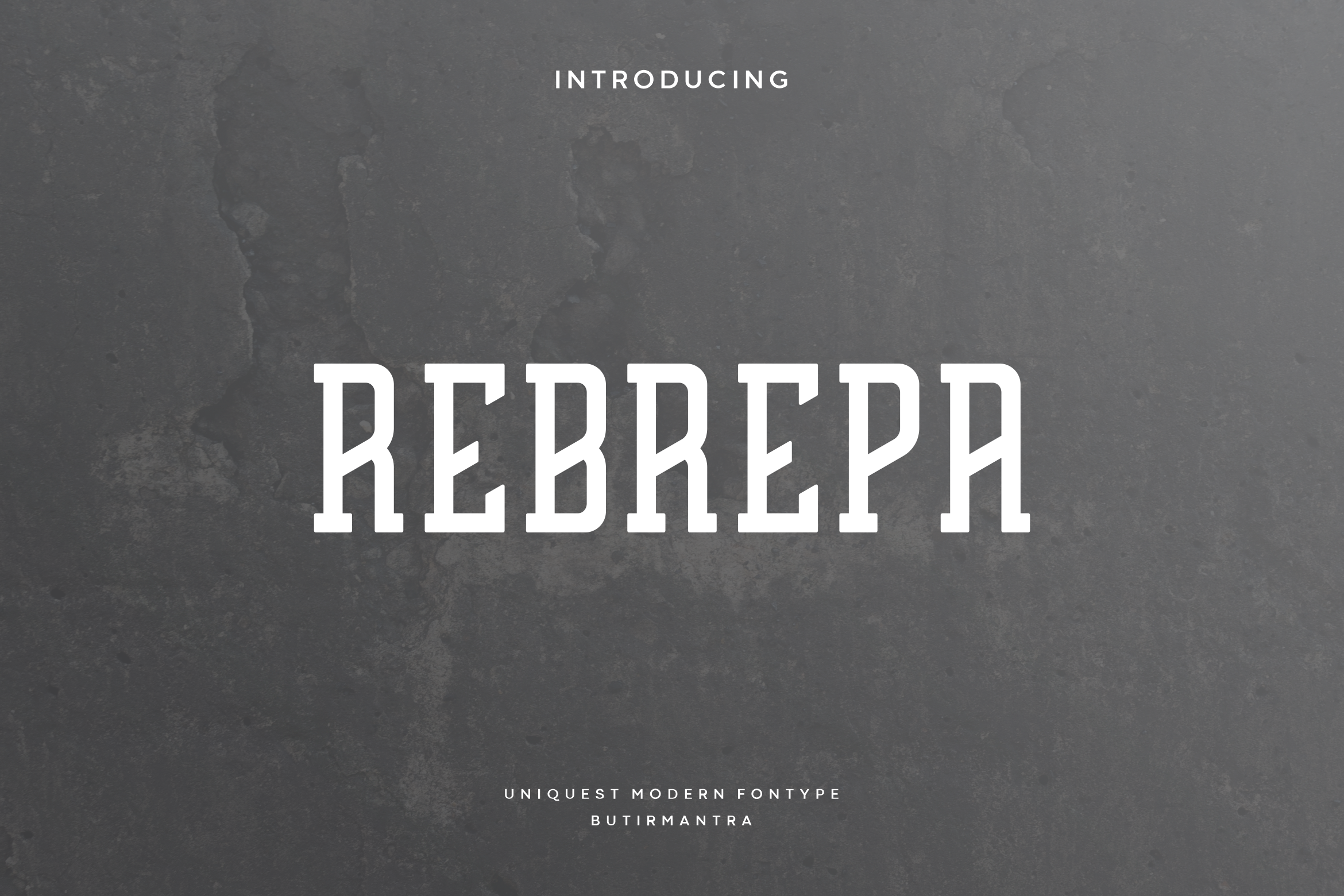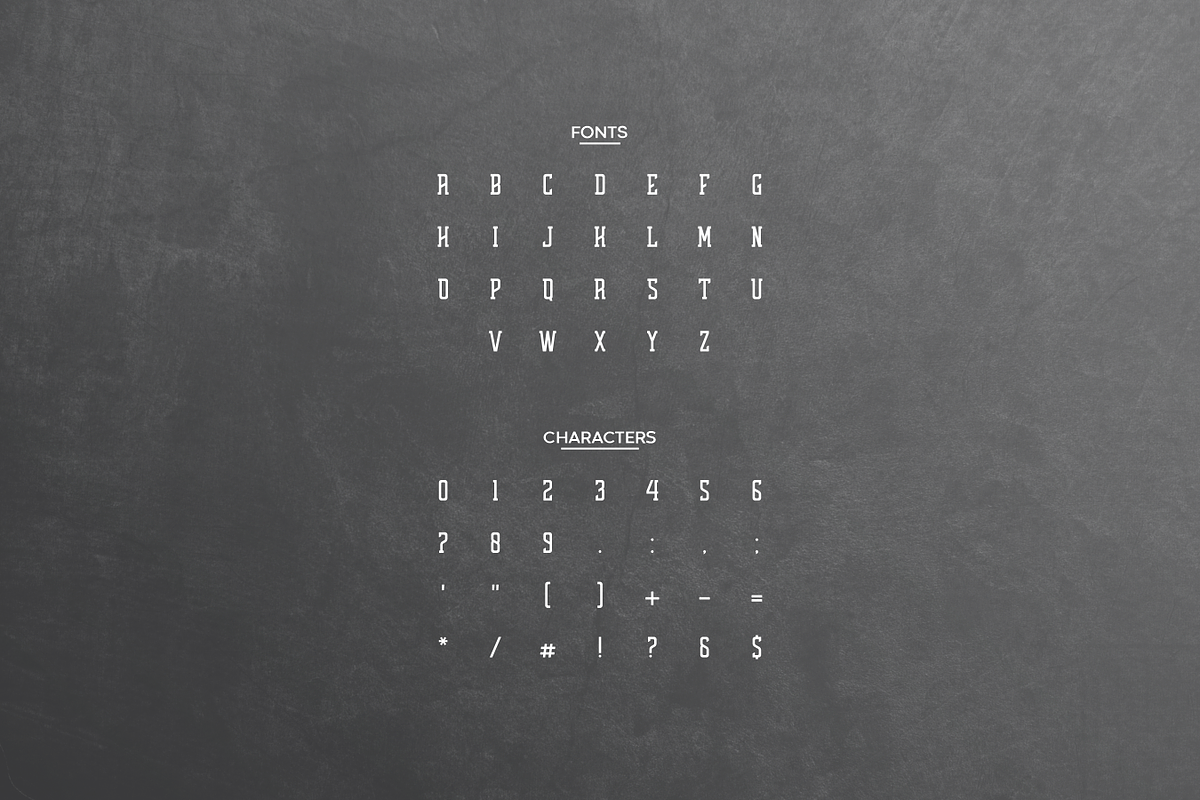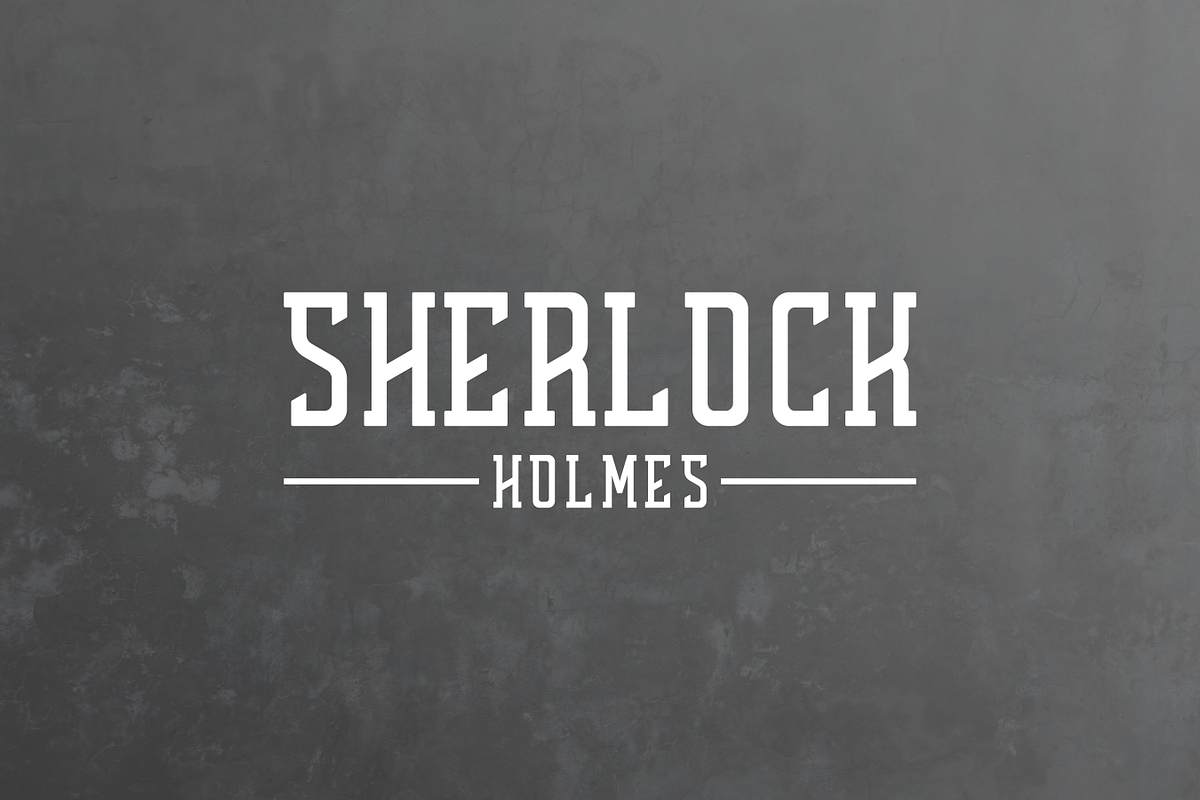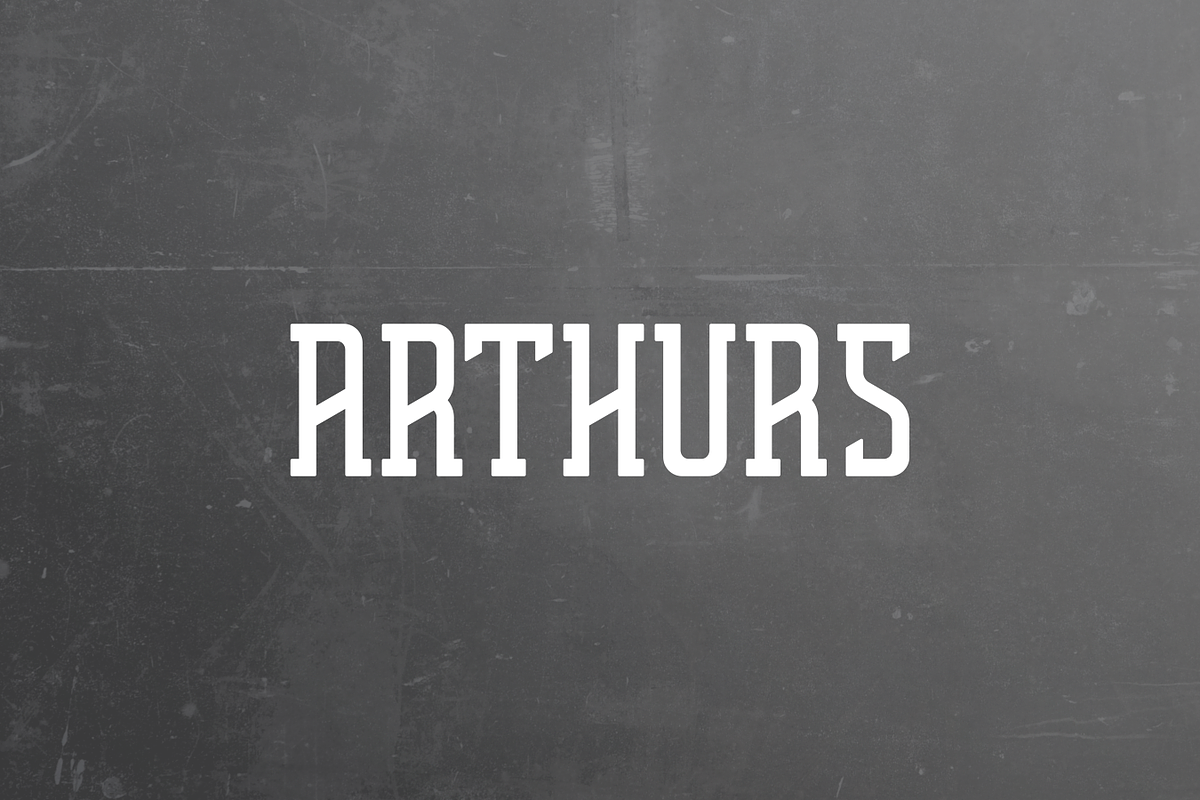
Rebrepa - Vintage Display Typeface
Rebrepa is a bold font in all caps typeface display font, designed with an archaic base to bring back the past, it has the potential to take your every creative idea to the highest level!